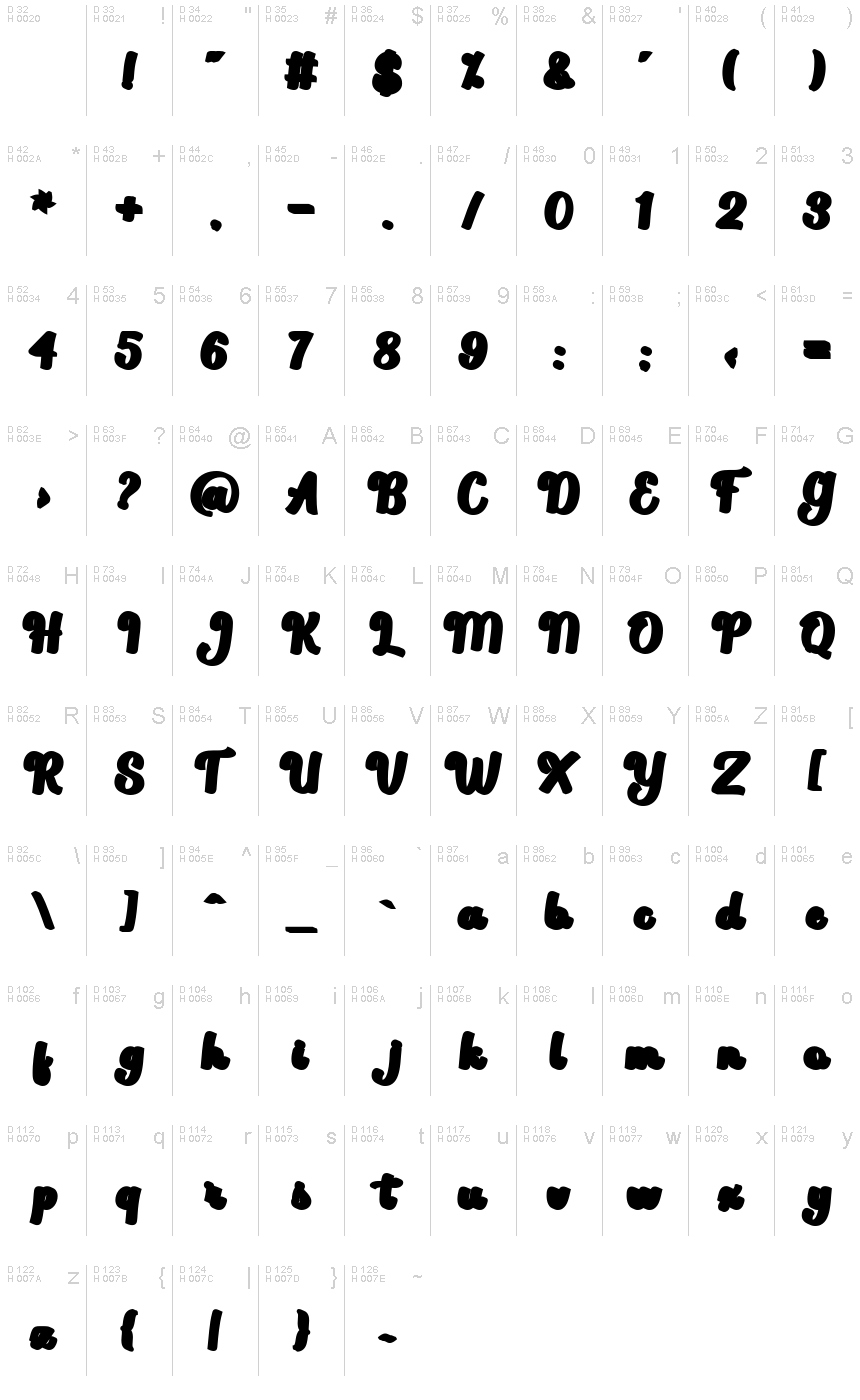
Singtton vintage Extrude Reg
Singtton Vintage Extrude emerges as a captivating display of typographic artistry, blending the charm of yesteryear with a bold brush style that demands attention. Its robust form and distinct extrusion effect create a sense of depth, making each letter leap off the page with an irresistible energy. The font exudes confidence and flair, perfect for designs that require a touch of nostalgia without sacrificing impact.
Ideal for branding projects, event posters, and packaging that seek to stand out, Singtton Vintage Extrude is also well-suited for editorial headlines where its character can shine. This font's ability to convey vintage vibes while maintaining readability ensures it will leave a memorable impression in any creative context.